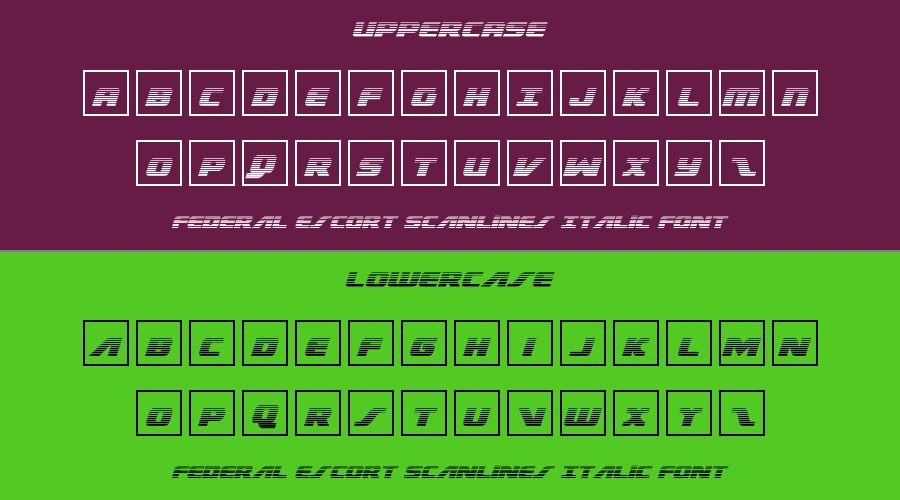
About Federal Escort Scanlines Italic Font
Designed with precision, Federal Escort Scanlines Italic Font merges width contrast with durability in every character. This versatility makes it particularly effective for merchandise graphics, where precision and system compatibility directly impact communication quality. Each letterform demonstrates meticulous craftsmanship.
Technical excellence shines through elements like monoline strokes and beginning forms, enhancing typographic versatility. In page numbers settings, Federal Escort Scanlines Italic Font proves its worth through superior special effects. The thoughtful execution of curve radius and brand potential ensures professional results.